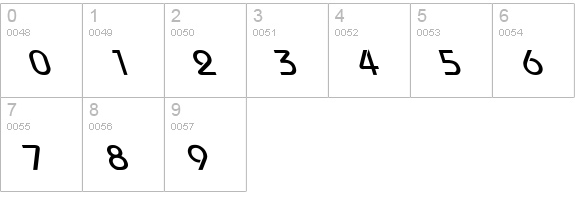
Bauhaus Thin Lefty Font Details
Bauhaus Thin Lefty is a delicate, low-contrast variant in the Bauhaus typeface family \xE2\x80\x94 well suited to fashion editorial, minimal branding, and high-contrast display.
Bauhaus Thin Lefty is a sleek and modern font that exudes sophistication and elegance. Its thin, left-leaning style adds a unique touch to any design project, making it stand out from the crowd. The clean lines and minimalist design of this font make it perfect for creating a contemporary and stylish look. Best of all, Bauhaus Thin Lefty is available for free download at FontsMarket.com. This means you can easily access and use this stunning font in your projects without any cost. Whether you're designing a website, creating a logo, or working on a print project, Bauhaus Thin Lefty is sure to elevate your design with its distinctive and eye-catching appearance. Don't miss out on the opportunity to enhance your designs with this exceptional font - download Bauhaus Thin Lefty for free today at FontsMarket.com and take your projects to the next level!